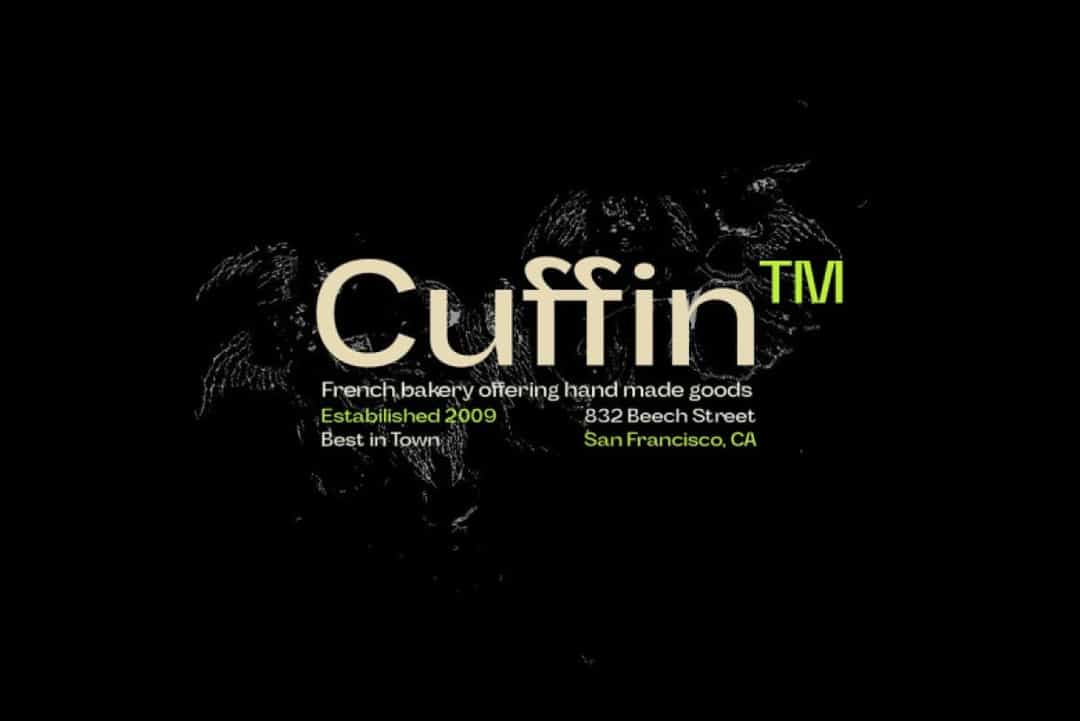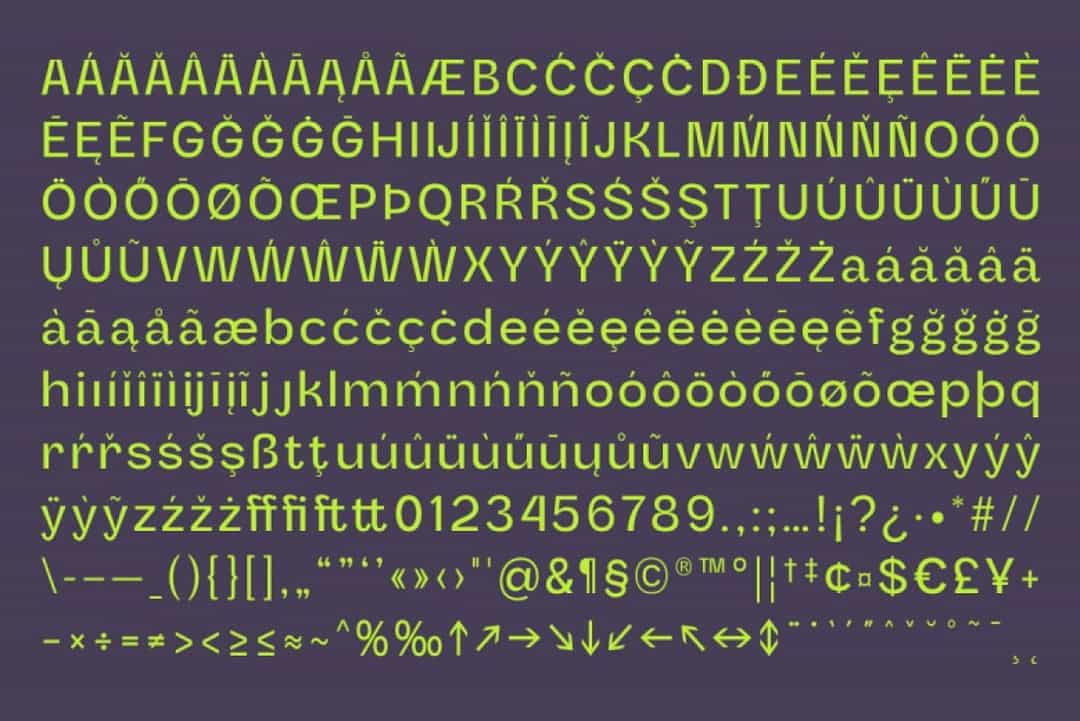
Baguede, the postmodern Grotesque sans serif font with an appealing aesthetic is perfect for creating refined displays. Use Baguede to give any design project an appealing and stylish appearance! Ideal for cards for greetings and packaging designs as well as crafting projects or DIY projects such as book titles or posters with retro pop vintage styling; do not hesitate to play around with this font and play around using it in any creative ways you see fit!